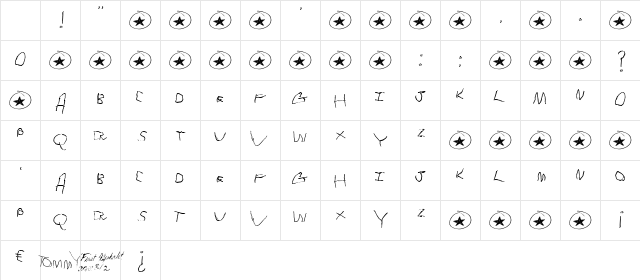
Complete Tommy's First Alphabet Regular glyph index. Displaying only characters natively supported by Tommy's First Alphabet Regular font.
Tommy's First Alphabet is a composed and adaptable typeface that performs quietly and consistently across a wide range of design contexts.